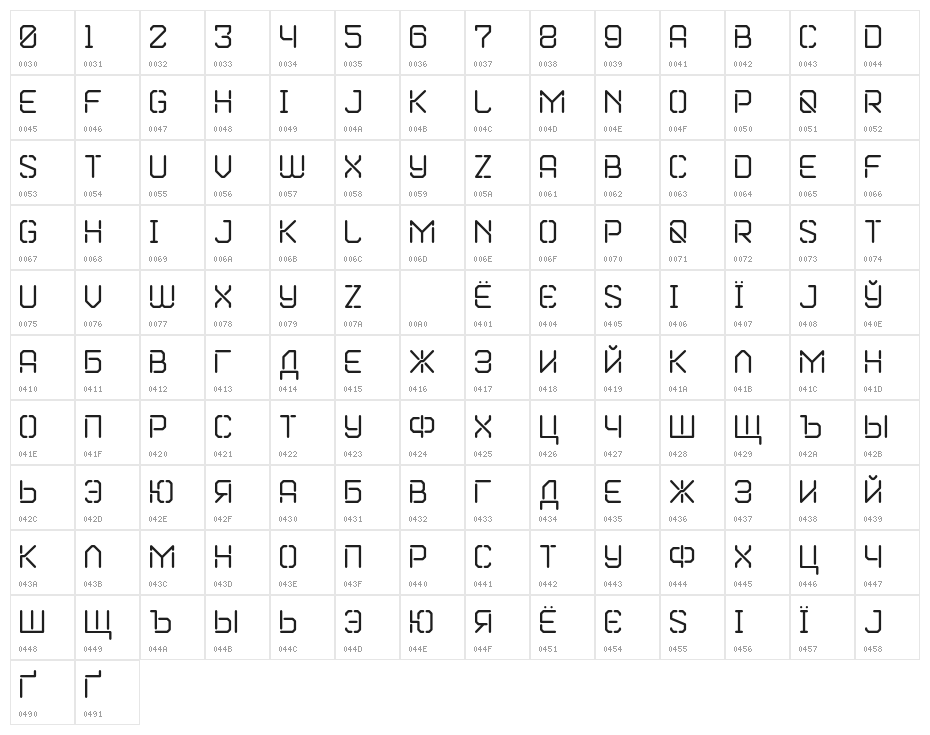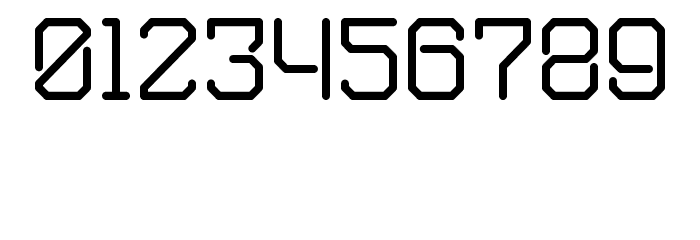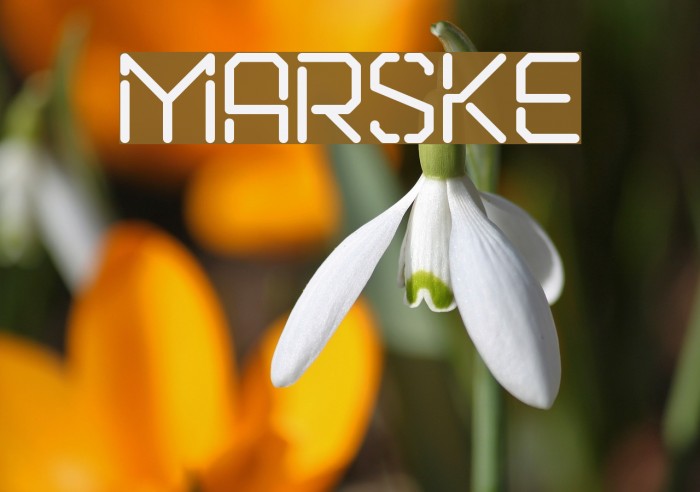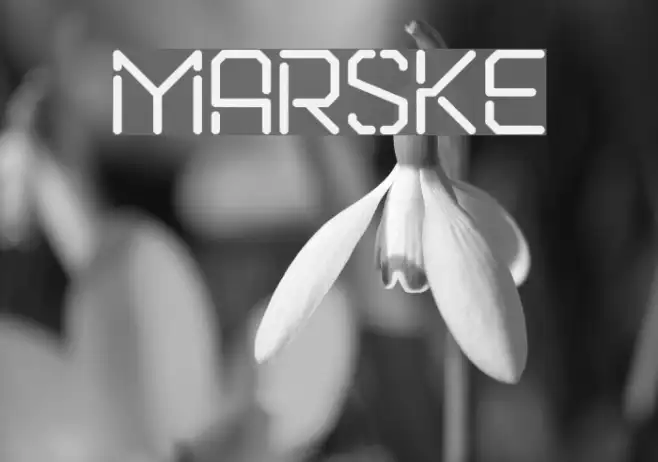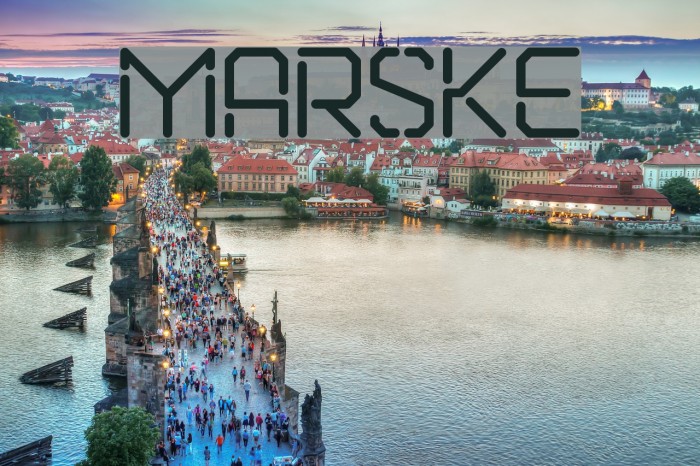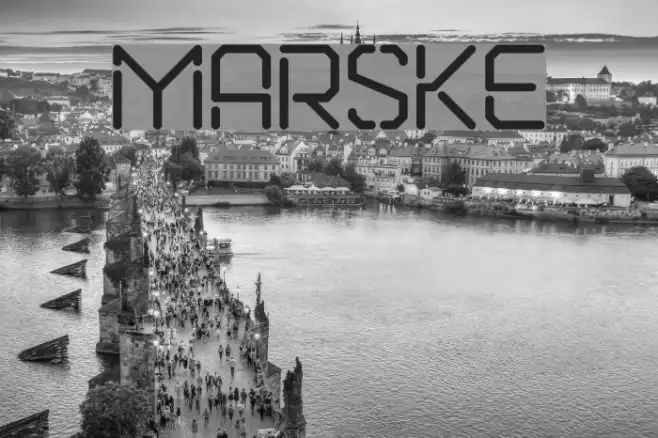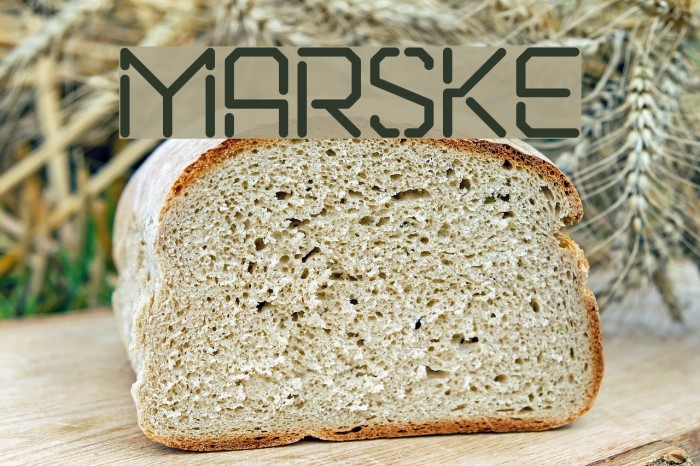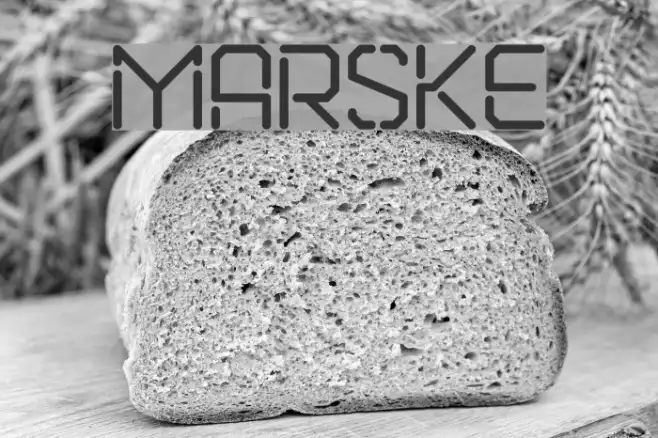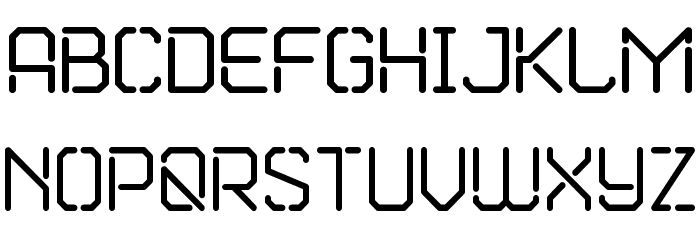
Marske Font
Marske Description
This font features a modern, geometric design with a distinct stencil-like appearance. Each character is composed of bold, angular lines with breaks that create a unique, industrial feel. The uppercase letters are uniform in height, while the numerals maintain a consistent style, ensuring readability. The absence of curves gives it a futuristic and technical aesthetic, making it stand out in digital and print media. The font's structured form is ideal for projects that require a strong, contemporary look.